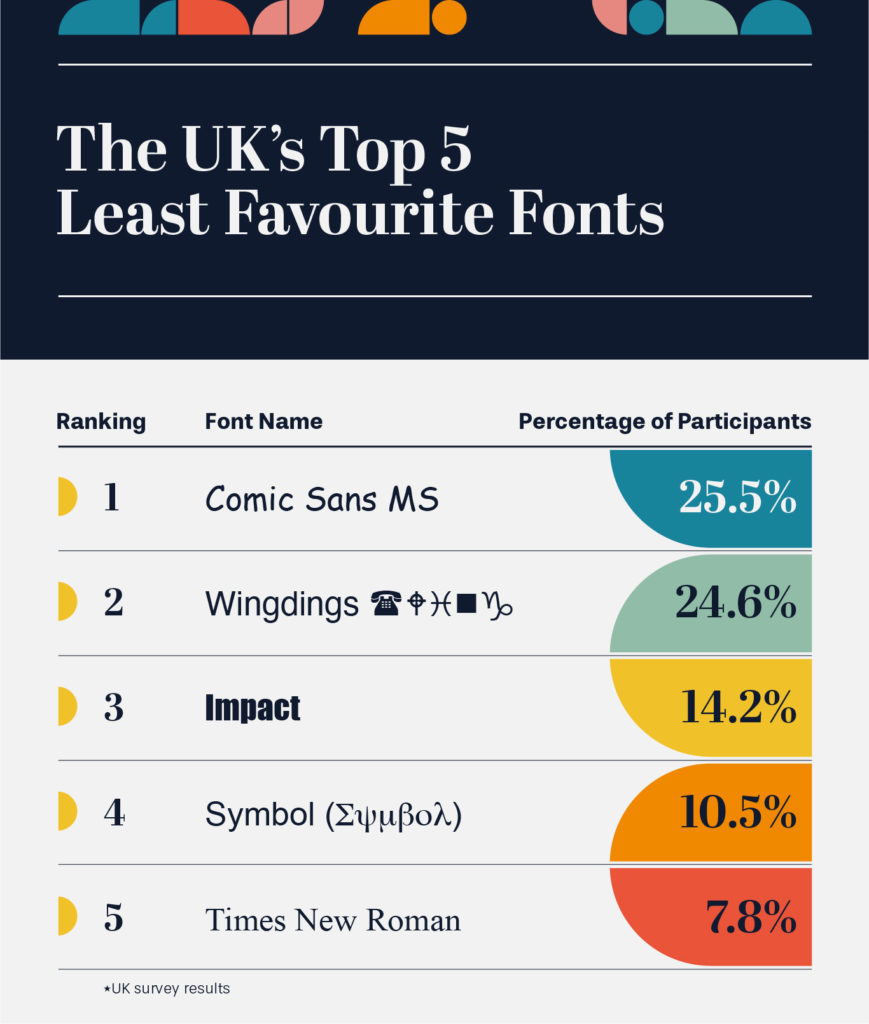
The most popular fonts of 2021 are utterly baffling
Some familiar fonts have made the cut.
It's hard to believe that we're under a month away from 2022. With the end of the year in sight, we are being treated to a number of lists ranking the popularity of things over the past year. And the UK's favourite font has just been revealed.
Perivan has released a number of infographics revealing the most and least popular fonts in the UK. We have to admit, we don't find the most popular fonts particularly exciting as they're all pretty bog-standard. But bizarrely enough, the polls have been done in a way that makes a couple of the most popular fonts some of the least popular as well (we're confused too – the specifics of the survey aren't made hugely clear), including Times New Roman and the infamous Comic Sans. Wingdings, Symbols and Impact were also included in the least popular top five, which we understand, but it begs the question, does Wingdings even count as a font?
If Comic Sans is both the most and least popular font of 2021, surely it's a genius paradox? According to Perivan, one participant said that Comic Sans is, "Useful for teaching primary", whereas another called it, "childish". So Comic Sans is simultaneously the butt of the joke, and educational – making it the unlikely anti-hero of the typography world. We've been questioning for years whether Comic Sans is as bad as we think, and this study has just perplexed us even more.
The study also showed that Coca-Cola had the most popular brand font, closely followed by Apple and Disney. We know for a fact that Spotify would never have made it to this list after the Spotify Wrapped font debacle, but we personally would have liked to have seen Google, and perhaps even Pokemon up there with their vibrant and original typefaces.